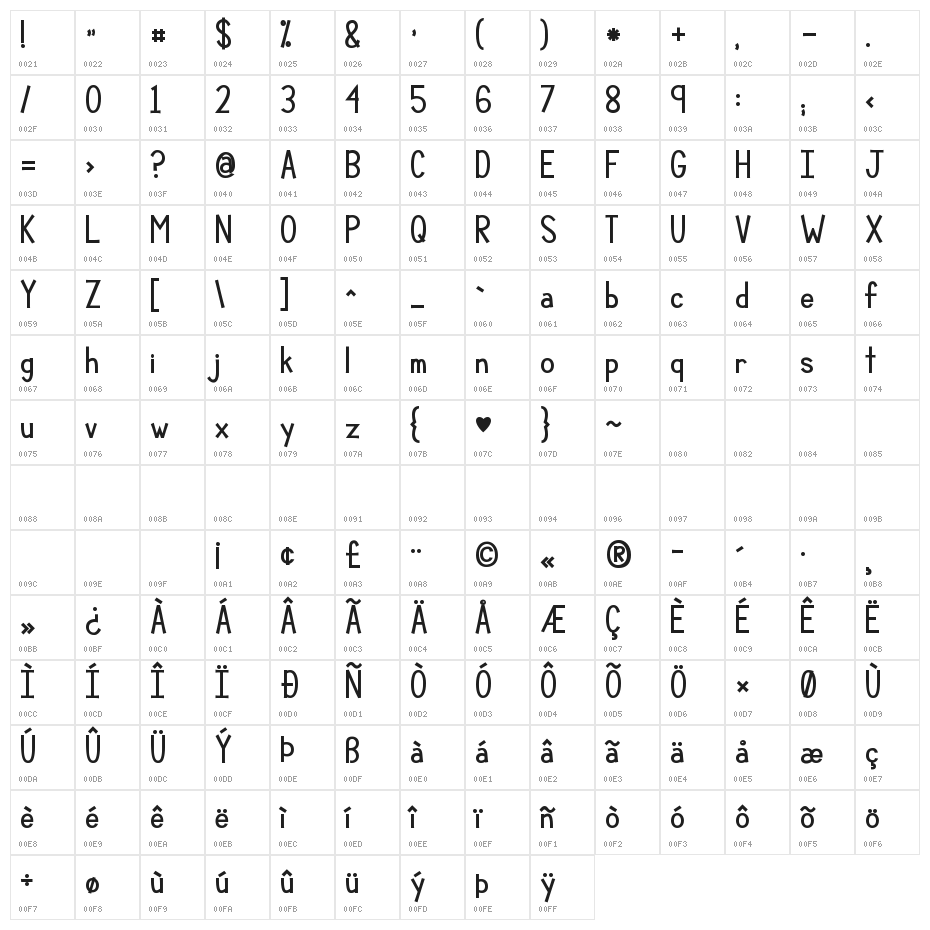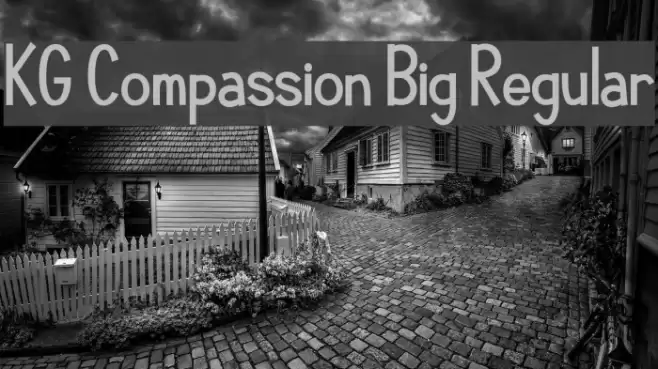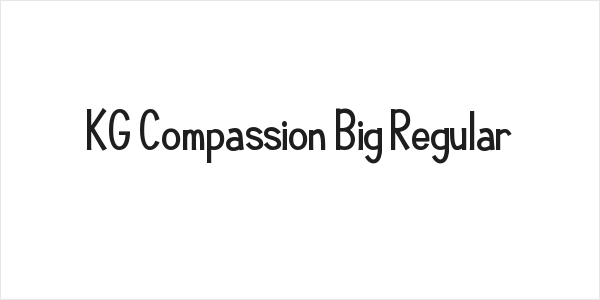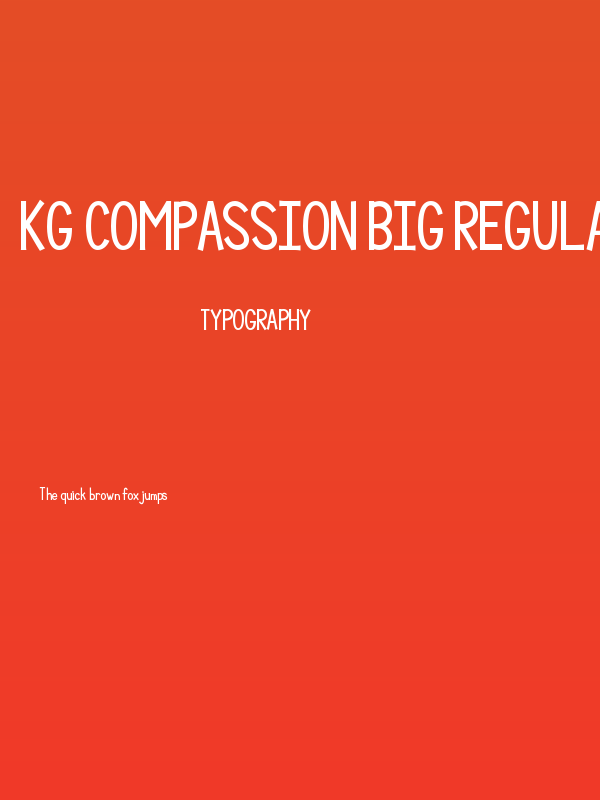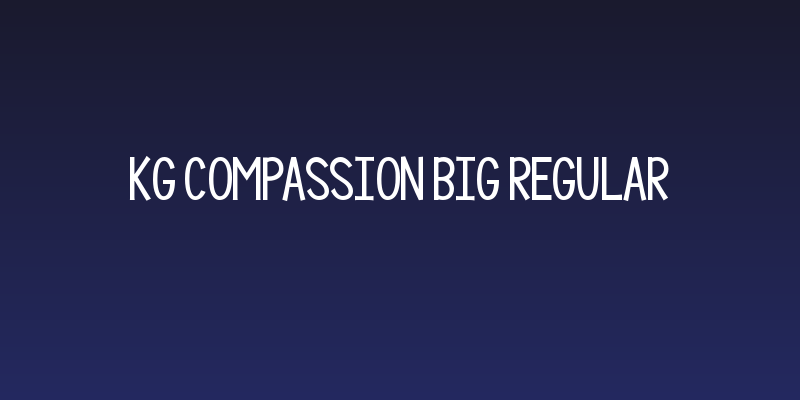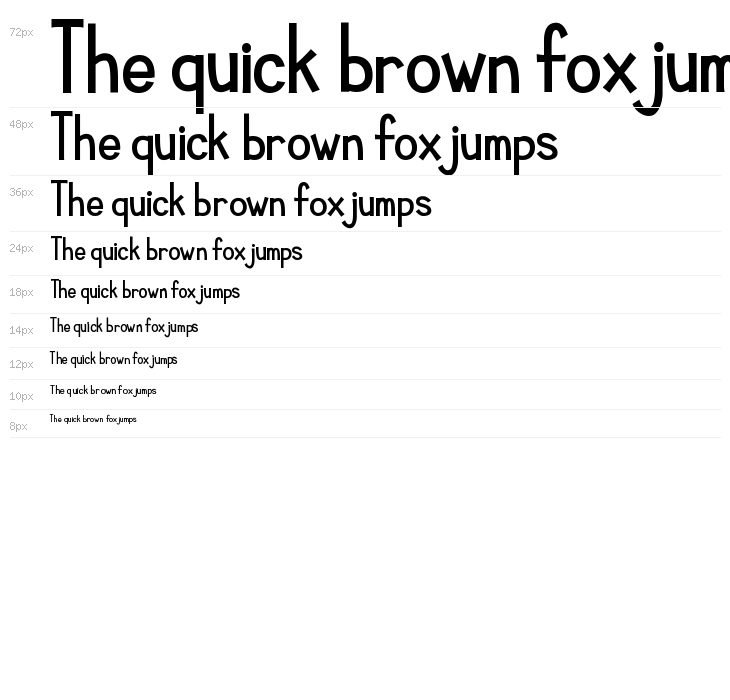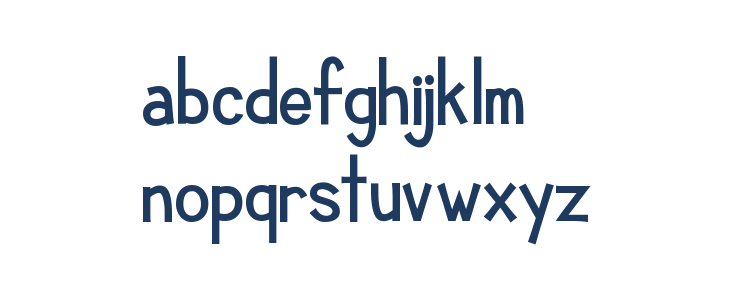
KG Compassion Big Regular Font
KG Compassion Big Regular Description
This font features a playful and friendly design, characterized by its tall, narrow letterforms and slightly rounded edges. The uppercase letters are bold and prominent, while the lowercase letters maintain a consistent style with a touch of whimsy. The numerals are clear and easy to read, matching the overall aesthetic. Special characters are well-integrated, adding to the font's versatility. The font's style is approachable and modern, making it suitable for a variety of creative projects.
| Proposed Projects | Ideal for children's books, playful branding, casual invitations, and creative posters. |